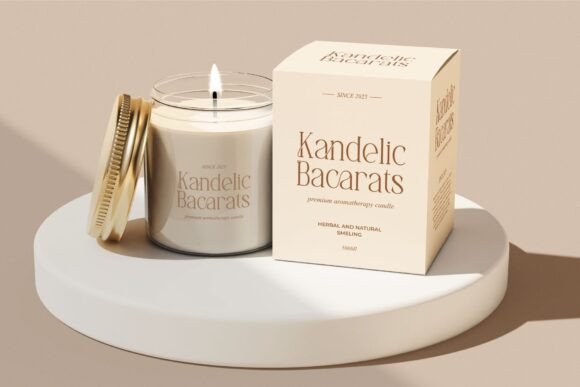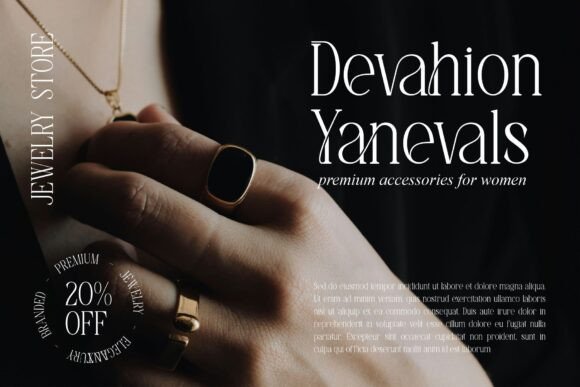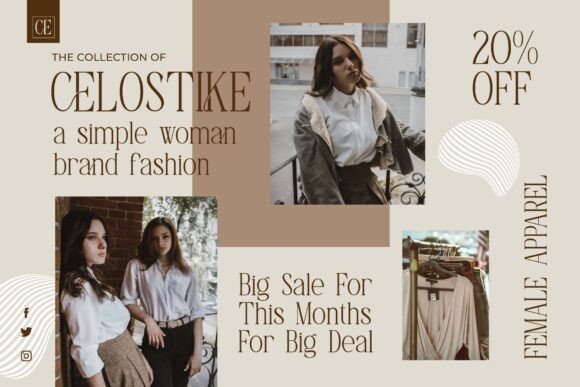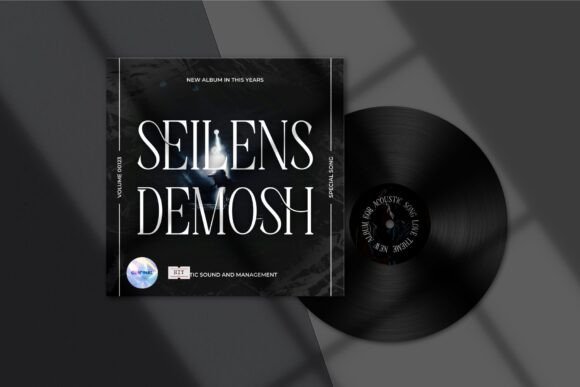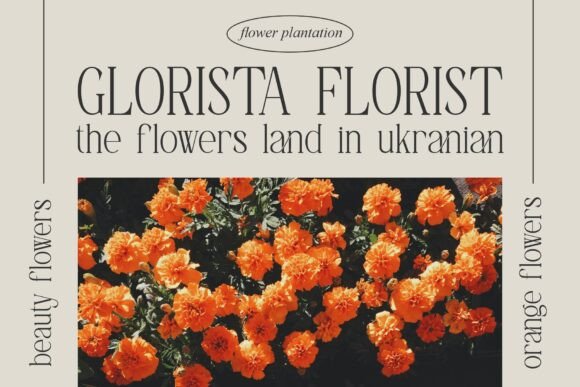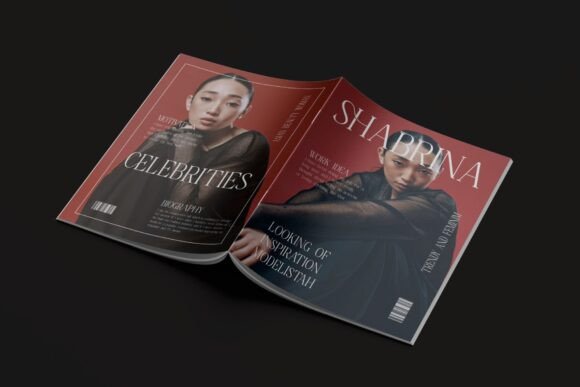
Introduction to Shery Font Font
Fonts play a crucial role in design, and the Shery Font font is a typeface that brings both character and versatility to any project. Whether you’re working on a branding project, a website, or a print design, the Shery Font font offers a unique style that can elevate your work.
Shery Serif is a vintage and classy font type for all branding and logo designs.
This vintage and classy Serif font has a beautiful character This font is suitable for invitation card designs, cool logos, movie titles, movie names, business cards, book titles, brand names, and various other designs.
Key Features of Shery Font Font
Why Choose Shery Font Font?
The Shery Font font is more than just a typeface – it’s a design tool that helps you communicate your message with style and clarity. Its unique character set and versatile design make it suitable for a wide range of applications, from elegant invitations to bold headlines.
With its carefully crafted letterforms and balanced proportions, the Shery Font font ensures readability and visual appeal across all mediums.
What makes Shery Font font special?
The Shery Font font stands out with its unique design, exceptional readability, and versatility across various design applications.